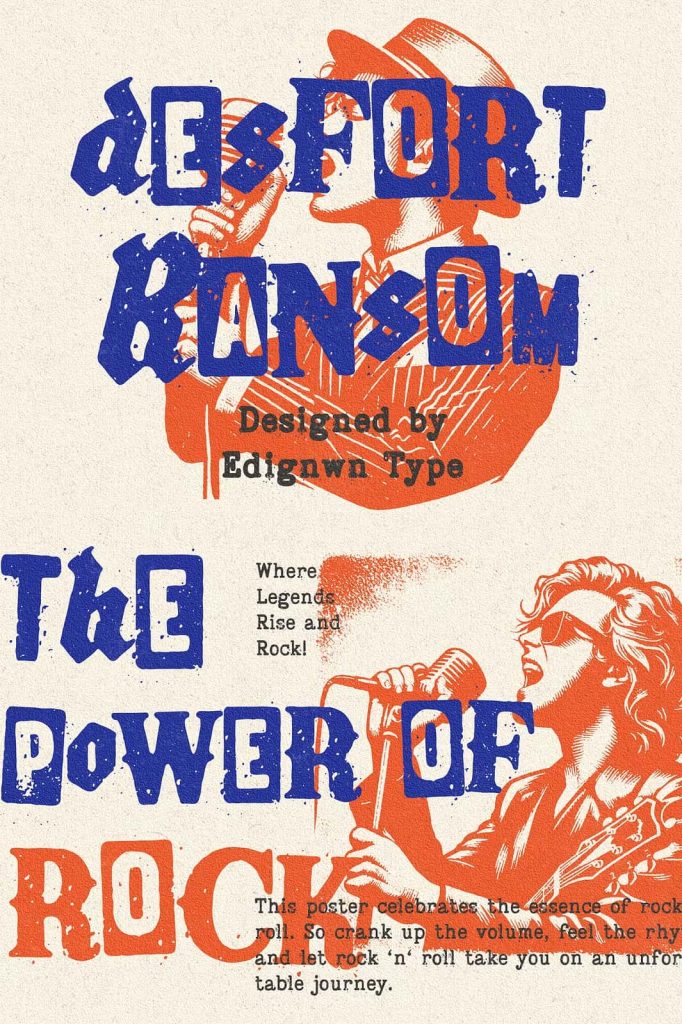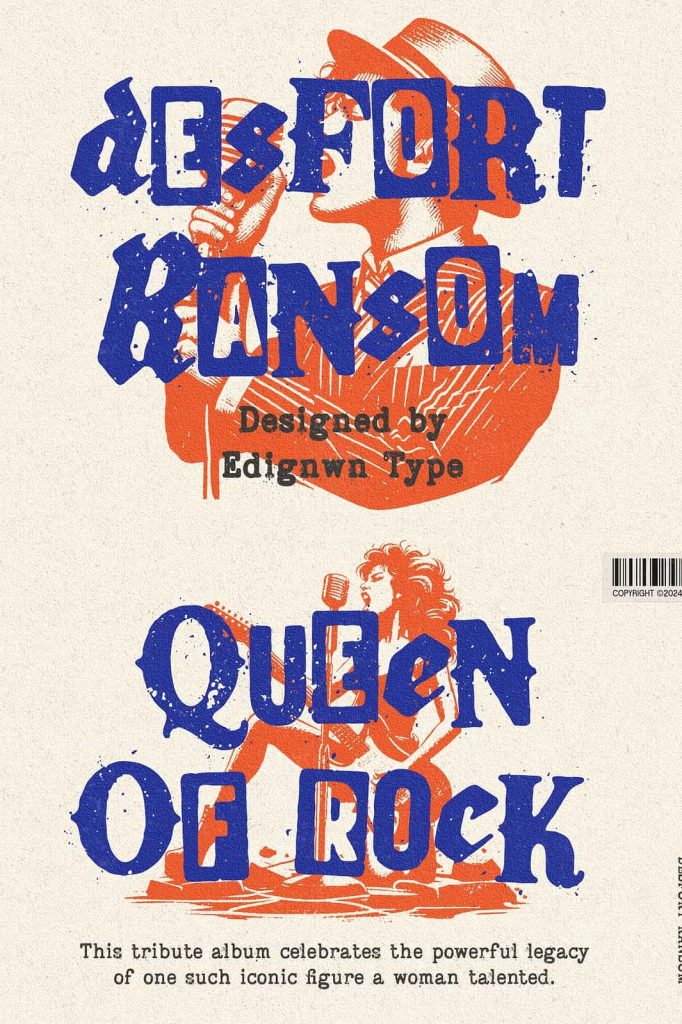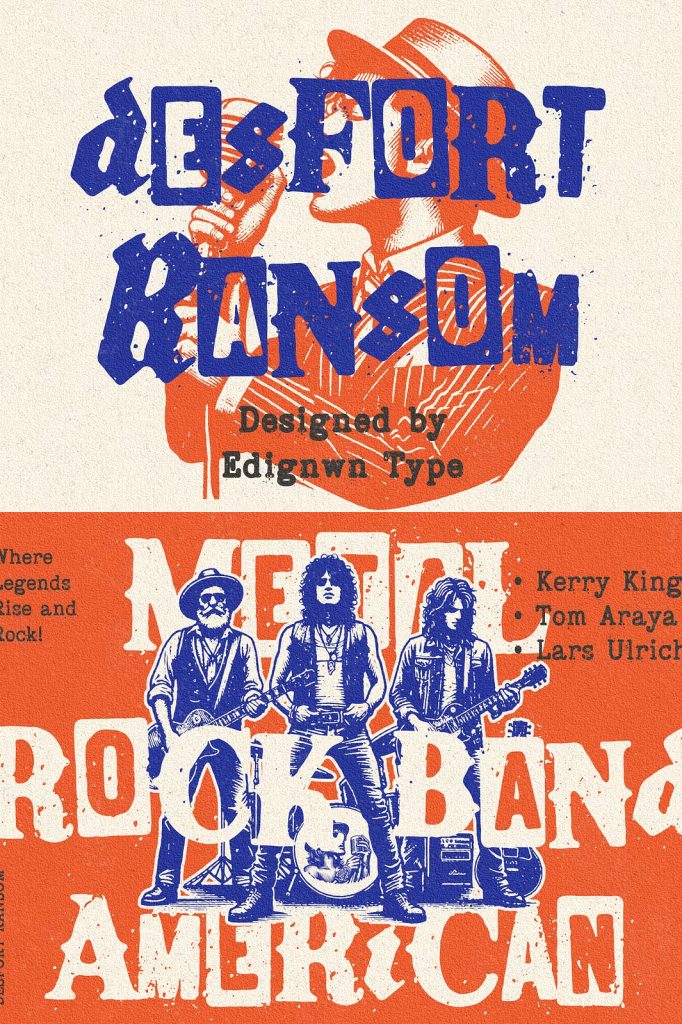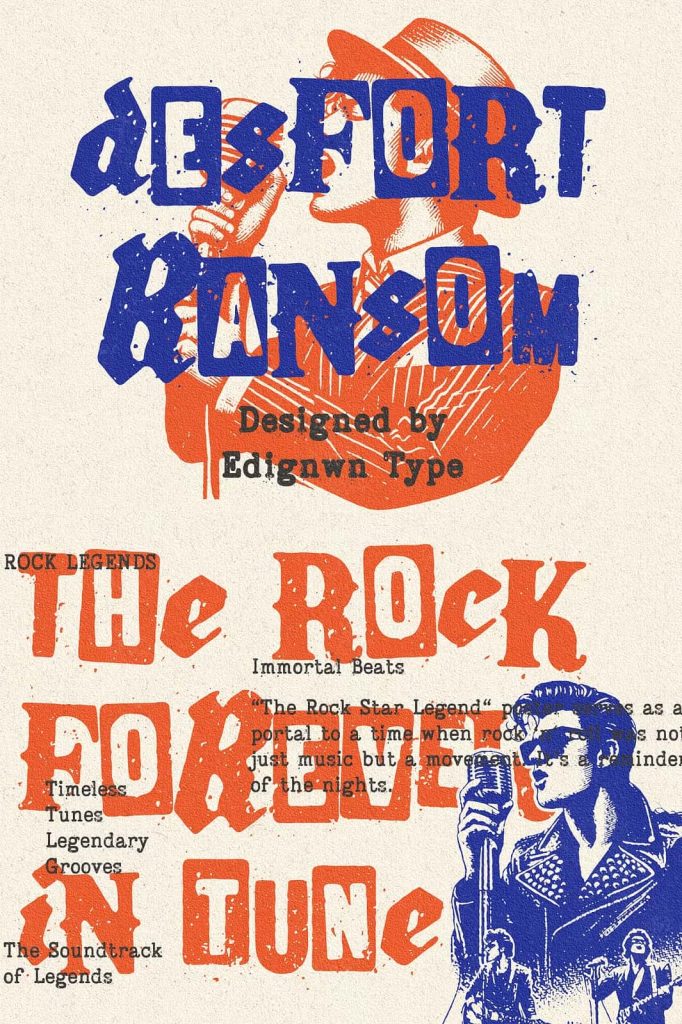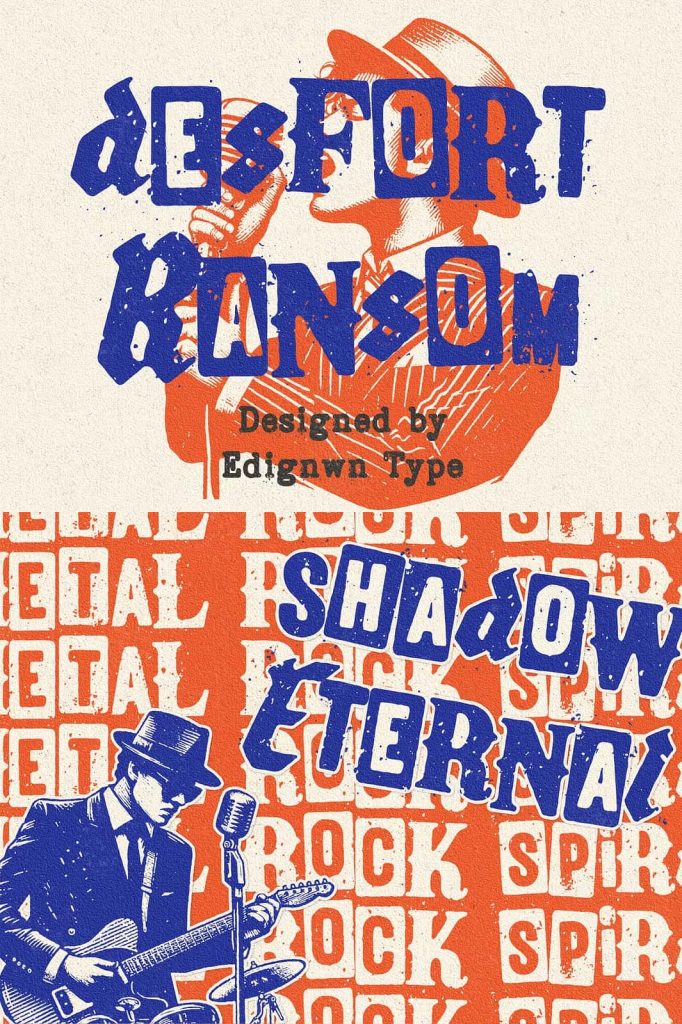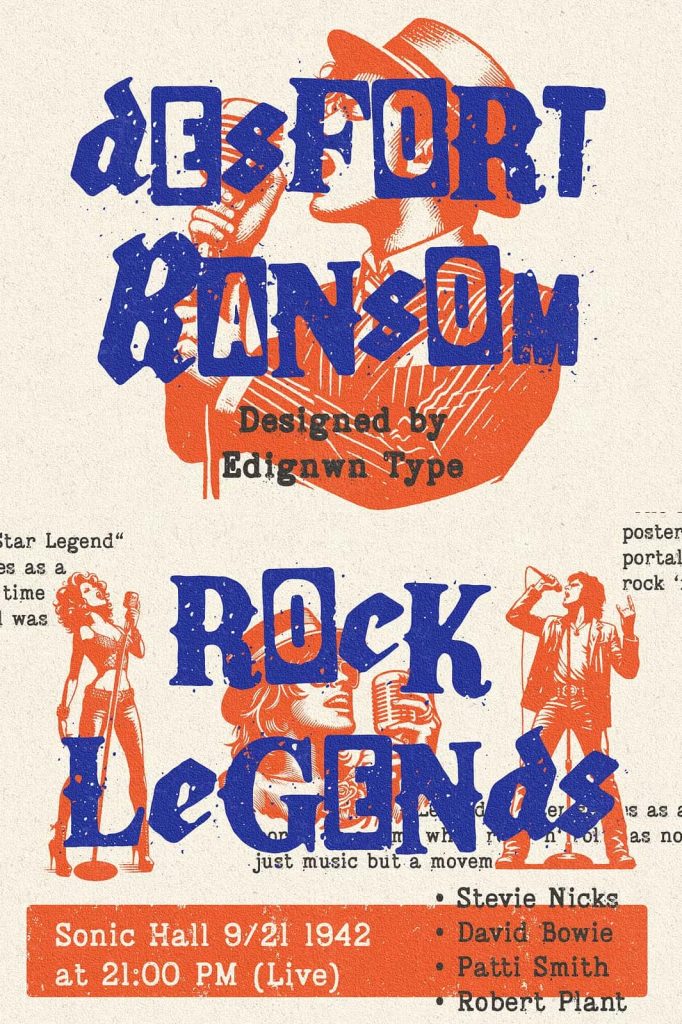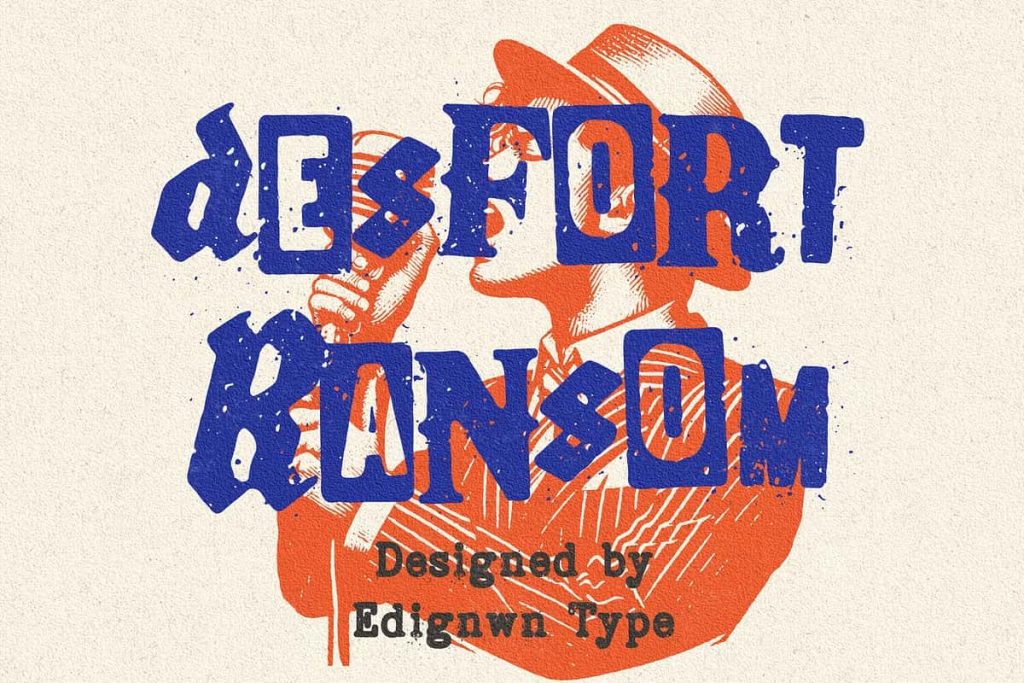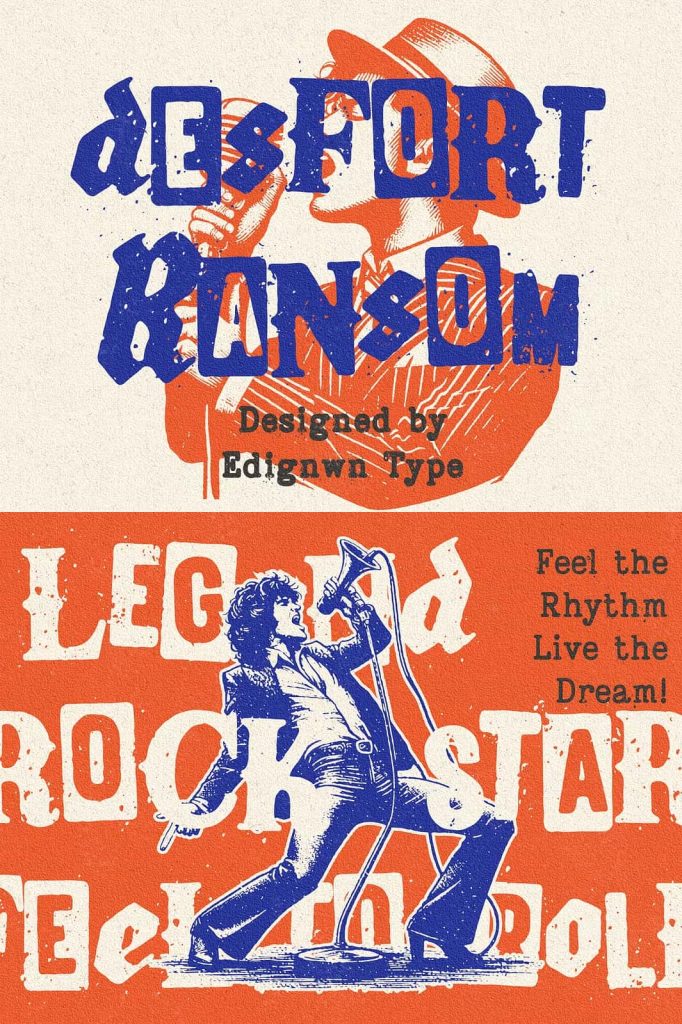
Desfort Ransom Rustic Font
Desfort Ransom is a bold and versatile ransom-style font designed to capture the raw energy of rock and metal culture. Inspired by the rebellious aesthetic of underground music scenes, this typeface delivers a rugged and expressive typographic style that immediately commands attention. With its distinctive cut-and-paste lettering approach and textured rustic details, Desfort Ransom introduces a powerful visual identity for creative projects that demand attitude and originality.
The font reflects the gritty spirit of rock posters, metal album artwork, and alternative street design. Each character feels intentionally irregular, giving the typography a handcrafted appearance that breaks away from traditional type structures. Designers can use this font to create designs that feel aggressive, authentic, and visually striking.
Desfort Ransom works particularly well in projects that embrace bold artistic direction. From music promotion to edgy branding, the font allows designers to craft typography that communicates raw personality and underground style.
Distinctive Ransom Style Typography
The ransom-style typography of Desfort Ransom draws inspiration from the classic cut-out lettering aesthetic. This style mimics the appearance of letters assembled from different sources, creating a collage-like typographic composition. The result is a font that feels chaotic yet intentionally designed.
This unique approach introduces visual variety into every word. Because the characters appear slightly mismatched, the typography creates a dynamic rhythm that keeps viewers engaged. Designers often use ransom-style fonts when they want to express rebellion, individuality, or unconventional creativity.
Desfort Ransom enhances this concept by incorporating rustic textures and rugged edges. These details strengthen the raw visual identity of the typeface and reinforce its connection to rock and metal design culture.
Authentic Underground Aesthetic
The visual personality of Desfort Ransom reflects the underground energy found in independent music scenes and alternative graphic design. The rough shapes and irregular structures create a sense of authenticity that polished fonts often lack.
This underground aesthetic helps designers produce artwork that feels genuine and culturally connected. Whether used in music promotion or edgy branding, the font adds an unmistakable rebellious spirit to the design.
Four Unique Alphabet Sets for Creative Flexibility
One of the most powerful features of Desfort Ransom is its collection of four different alphabet sets. These character variations allow designers to experiment with numerous combinations and create typography that feels unique every time.
The font includes the following character sets:
- A-Z uppercase characters
- a-z lowercase characters
- A_01-Z_01 alternate uppercase characters
- a_01-z_01 alternate lowercase characters
By mixing and matching these sets, designers can build customized typographic compositions that avoid repetitive patterns. This flexibility is especially valuable in ransom-style fonts, where variation enhances the overall visual impact.
Designers can easily substitute alternate letters to create titles and headlines that feel spontaneous and expressive. The ability to switch characters quickly opens up endless creative possibilities.
Create Unique Letter Combinations
The multiple alphabet sets encourage experimentation and creativity. Designers can craft typography that feels truly one-of-a-kind by selecting different variations for repeated letters. This process produces a natural randomness that strengthens the ransom-style effect.
Such flexibility makes Desfort Ransom particularly appealing for projects that require bold visual individuality.
Regular and Rustic Style Options
Desfort Ransom offers two distinct stylistic variations: Regular and Rustic. These options allow designers to adapt the font to different creative directions while maintaining a consistent typographic identity.
The Regular style provides clean letterforms that emphasize the ransom-style structure and character variation. This version works well in designs that require strong visual clarity while still maintaining the rebellious look.
The Rustic style introduces textured details and rough edges that enhance the raw aesthetic of the font. These subtle imperfections add depth and character to the typography, making it particularly effective for grunge-inspired or vintage rock designs.
Flexible Design Options
By offering both Regular and Rustic styles, Desfort Ransom allows designers to adjust the visual tone of their typography. The Regular style can support bold graphic layouts, while the Rustic version delivers a more rugged and distressed appearance.
This versatility helps the font adapt to different creative environments without losing its distinctive personality.
The flexibility provided by the alternate character sets ensures that designers can continuously experiment and build fresh typographic compositions. Each project can feature unique letter arrangements that reinforce the rebellious personality of the font.
For projects inspired by rock culture, underground art, and alternative design aesthetics, Desfort Ransom provides the perfect tool to bring raw energy and creative individuality into your typography.